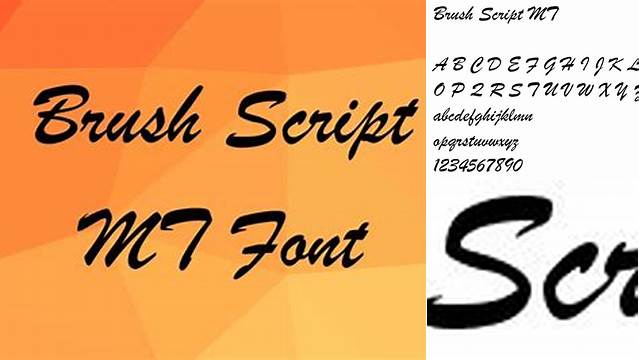
Introduction to Brush Script MT Free Font
Hey guys! Let's dive into the world of fonts, specifically the Brush Script MT Free Font. This font is a classic, and it’s super popular for a reason. If you're looking to add a touch of elegance and personality to your designs, you've come to the right place. Brush Script MT is known for its cursive, flowing letters, which mimic the look of handwriting. It's the kind of font that can make your projects stand out, whether you're working on invitations, posters, logos, or even web designs. But what makes this font so special? Why should you consider using it in your next project? Well, let's break it down. The Brush Script MT font exudes a sense of warmth and authenticity that is often missing in more structured, sans-serif fonts. Its calligraphic style brings a personal touch to any design, making it perfect for projects that aim to convey a sense of intimacy or handcrafted quality. Think about it – a beautifully designed wedding invitation using Brush Script MT can instantly set the tone for a romantic and memorable event. Similarly, a business logo that incorporates this font can communicate a brand’s approachable and creative nature. However, it's important to note that while Brush Script MT is versatile, it's not a one-size-fits-all solution. Its distinctive style is best suited for specific applications where its flowing lines and elegant curves can truly shine. Overusing it or applying it in inappropriate contexts can diminish its impact and make your designs look cluttered or unprofessional. Understanding its strengths and limitations is key to leveraging its full potential. In this comprehensive guide, we’ll explore everything you need to know about Brush Script MT, from its history and characteristics to its best uses and how to download it for free. We'll also discuss some common pitfalls to avoid when using the font and provide tips for pairing it with other fonts to achieve a harmonious and visually appealing design. So, whether you're a seasoned designer or just starting out, stick around – you're about to become a Brush Script MT expert!
History and Characteristics
So, you might be wondering, where did this cool font come from? The history of Brush Script MT is actually quite interesting. It was designed back in 1942 by Robert E. Smith for the American Type Founders (ATF). This was a time when hand-lettered styles were making a big comeback, and Brush Script MT perfectly captured that trend. It was created to mimic the look of brush calligraphy, hence the name. The font quickly gained popularity and has remained a favorite among designers for decades. Its timeless appeal speaks volumes about its design quality and versatility. Smith's vision was to create a typeface that felt both personal and polished, and he succeeded admirably. The flowing strokes and elegant letterforms of Brush Script MT evoke the artistry of traditional calligraphy while remaining accessible and legible for modern applications. This balance between classic and contemporary is what has allowed it to endure as a design staple. Now, let’s talk about the characteristics that make Brush Script MT so unique. First off, it’s a script font, which means the letters are connected in a flowing, cursive style. This gives it a very organic and handwritten feel. The strokes vary in thickness, which adds to the calligraphic effect. You'll notice that some lines are bold and strong, while others are delicate and thin, mimicking the natural variations in pressure applied when writing with a brush. Another key characteristic is its slanted appearance. The letters lean slightly to the right, which gives the font a sense of movement and energy. This slant contributes to its dynamic and engaging aesthetic, making it a great choice for designs that need to capture attention. Brush Script MT also has a relatively high x-height, meaning the lowercase letters are quite tall in relation to the uppercase letters. This enhances readability and makes the font feel more approachable and less formal. The rounded terminals and graceful curves further contribute to its friendly and inviting personality. However, it’s important to note that Brush Script MT's distinctive characteristics also come with some limitations. Its flowing, connected letters can become difficult to read if used in very small sizes or in large blocks of text. Therefore, it’s best used sparingly, for headlines, titles, and short phrases where its elegant style can truly shine. Understanding these characteristics is crucial for using Brush Script MT effectively in your designs. By appreciating its history and recognizing its unique features, you can make informed decisions about when and how to incorporate this beautiful font into your projects.
Best Uses for Brush Script MT
Alright, so where does Brush Script MT really shine? This font isn't just pretty; it's also incredibly versatile when used in the right context. Think of Brush Script MT as that stylish friend who knows how to dress for any occasion – as long as you know the occasion! One of the most popular uses for Brush Script MT is in invitations. Whether it's a wedding, a birthday party, or a special event, this font adds a touch of elegance and personalization. Imagine a wedding invitation with the couple's names beautifully written in Brush Script MT – it instantly sets a romantic and sophisticated tone. The flowing script evokes a sense of celebration and warmth, making it an ideal choice for conveying important life events. Its classic yet contemporary feel ensures that the invitation stands out while maintaining a timeless appeal. Beyond weddings, Brush Script MT works wonderfully for birthday invitations, anniversaries, and even formal gatherings. The key is to use it sparingly, focusing on key elements like names, dates, and event titles. Pairing it with a simpler, more legible font for the body text ensures that the invitation remains easy to read while still exuding style. Another fantastic application is in logos and branding. If your brand wants to convey a sense of creativity, friendliness, or handmade quality, Brush Script MT can be a great choice. Think about businesses like bakeries, craft shops, or boutiques – this font can help them communicate a personal touch. A logo in Brush Script MT can give a brand a unique identity, setting it apart from competitors that opt for more generic fonts. The font's flowing lines and calligraphic style create a visual connection with customers, suggesting a brand that values artistry and attention to detail. However, it's crucial to consider the overall brand image before committing to Brush Script MT for a logo. While it works well for businesses with a creative or personal focus, it might not be the best fit for more corporate or formal industries. For instance, a law firm or a financial institution might prefer a more structured and professional-looking font. Posters and signage are another area where Brush Script MT can make a significant impact. Imagine a poster for a local art exhibition or a sign for a coffee shop – the font's eye-catching style can draw people in. Its elegant curves and dynamic slant create a visual hierarchy that guides the viewer's eye, making the message more memorable. When used on posters, Brush Script MT can add a touch of sophistication and artistry, making the event or product being advertised feel more special. For signage, it can communicate a sense of warmth and welcome, particularly for businesses that aim to create a friendly atmosphere. However, it’s important to ensure that the font is legible from a distance. Using a larger font size and contrasting it with a plain background can help maximize its impact. Lastly, Brush Script MT can also be used in web design, though with some caution. While it can add a unique flair to headers and titles, it's important to ensure it remains readable on different devices and screen sizes. Overusing it on a website can make the text look cluttered and difficult to navigate. Therefore, it’s best to reserve it for key elements like headings, banners, or call-to-action buttons. By understanding its strengths and limitations, you can effectively incorporate Brush Script MT into your web design to create a visually appealing and engaging user experience. In conclusion, Brush Script MT is a versatile font that can enhance a wide range of projects. From invitations and logos to posters and web design, its elegant and personal style can make a lasting impression. Just remember to use it judiciously and in contexts where its unique characteristics can truly shine.
Common Pitfalls to Avoid
Okay, so you've got Brush Script MT, you're ready to roll, but hold up! There are a few common pitfalls you should definitely avoid to make sure your designs look amazing and professional. Using this font effectively is all about knowing its limitations and how to work around them. One of the biggest mistakes people make is overusing the font. Brush Script MT is beautiful, but it's also very distinctive. If you use it for every single element in your design, it can quickly become overwhelming and lose its impact. Think of it like adding too much spice to a dish – a little bit can enhance the flavor, but too much can ruin the whole thing. It's best to reserve Brush Script MT for headlines, titles, or short phrases where its elegance can truly shine. Avoid using it for large blocks of body text, as the cursive style can become difficult to read and strain the eyes. Another pitfall is using it in small sizes. The delicate, flowing lines of Brush Script MT can become muddled and illegible when shrunk down. If you need a small font size, it's better to opt for a simpler, more legible typeface. Brush Script MT is best suited for larger sizes where its intricate details can be appreciated. This is particularly important in web design, where screen resolution and device compatibility can affect how a font renders. Testing the font at different sizes and on various devices is crucial to ensure it remains readable. Inappropriate pairings are another common mistake. Not all fonts play well together, and pairing Brush Script MT with the wrong typeface can create a jarring and unprofessional look. Generally, it's best to pair it with a clean, simple font like a sans-serif or a classic serif. This creates a visual contrast that highlights the elegance of Brush Script MT without overwhelming the overall design. For example, pairing it with a font like Arial or Times New Roman can create a balanced and sophisticated aesthetic. A common mistake is to pair Brush Script MT with another script font, which can result in a cluttered and chaotic design. Choose a secondary font that complements Brush Script MT without competing for attention. Also, be mindful of the context in which you're using the font. Brush Script MT has a certain personality – it's elegant, friendly, and a bit informal. It might not be the best choice for projects that require a serious or professional tone, such as legal documents or financial reports. Consider the message you're trying to convey and whether Brush Script MT aligns with the overall tone and style of your design. For example, while it works beautifully for wedding invitations and creative branding, it might not be suitable for a corporate annual report or a technical manual. Ignoring kerning and spacing can also detract from the font's beauty. Kerning refers to the spacing between individual letters, and adjusting it can significantly improve the readability and visual appeal of your text. Brush Script MT, with its flowing connections, often requires careful kerning to ensure that the letters flow smoothly and don't overlap or appear too far apart. Similarly, paying attention to the overall spacing of your text, including line height and letter spacing, can enhance its readability and visual harmony. Finally, failing to test the font across different mediums is a pitfall that can lead to unexpected results. A font that looks great on your computer screen might not translate well to print, or vice versa. Before finalizing your design, it's essential to test it in the intended medium, whether it's a printed poster, a website, or a mobile app. This will help you identify any issues with readability, sizing, or spacing and make necessary adjustments. In conclusion, Brush Script MT is a fantastic font, but it's important to use it wisely. By avoiding these common pitfalls, you can ensure that your designs look polished, professional, and truly stunning.
Font Pairing Tips
So, you've got Brush Script MT, and you're ready to make some magic. But here’s a secret: even the most beautiful font needs a good partner. Font pairing is an art, guys, and when done right, it can elevate your designs from good to amazing. Let's talk about some tips to help you find the perfect match for Brush Script MT. The golden rule of font pairing is contrast. You want to create visual interest by pairing Brush Script MT with a font that's significantly different. Since Brush Script MT is a flowing, cursive script font, the best pairings are usually with clean, simple fonts that offer a strong contrast. Think of it like pairing a bold statement necklace with a minimalist outfit – the contrast makes both elements shine. One of the most reliable choices for pairing with Brush Script MT is a sans-serif font. Sans-serif fonts are characterized by their clean lines and lack of serifs (the small decorative strokes at the ends of letters). This simplicity provides a perfect counterbalance to the elegance and flair of Brush Script MT. Fonts like Open Sans, Montserrat, and Lato are excellent choices. They're versatile, highly readable, and won't compete with the script font for attention. Using a sans-serif font for body text or secondary elements will help create a balanced and professional look. The contrast in styles will make your design more visually appealing and easier to read. Another great option is a classic serif font, but with a twist. While sans-serif fonts offer a clear contrast in style, serif fonts can bring a touch of sophistication and tradition. However, it's crucial to choose a serif font that doesn't clash with Brush Script MT. Opt for a clean, modern serif like Playfair Display or Garamond. Avoid overly ornate or decorative serif fonts, as they can compete with the script font and create a cluttered look. When using a serif font, consider using it for headings or subheadings to create a clear visual hierarchy. This can help guide the viewer's eye and make your design more engaging. Think about hierarchy. When pairing fonts, consider which elements you want to emphasize. Brush Script MT is perfect for headlines and titles, but it can be challenging to read in large blocks of text. Use your secondary font for the body text or any other elements that require high readability. This creates a visual hierarchy that makes your design more accessible and user-friendly. For example, you might use Brush Script MT for a website header and pair it with a sans-serif font like Roboto for the body text. This ensures that the header stands out while the body text remains easy to read. Limit the number of fonts. It's tempting to use a variety of fonts in your designs, but resist the urge! Too many fonts can create a chaotic and unprofessional look. As a general rule, stick to a maximum of two fonts per design. This will help maintain a cohesive and harmonious aesthetic. If you need more variety, consider using different weights or styles within the same font family. For instance, you could use a bold version of your sans-serif font for subheadings and a regular version for body text. Finally, trust your eye. Font pairing is subjective, and what works well for one design might not work for another. Experiment with different pairings and see what feels right to you. Look at examples of successful font pairings for inspiration, but don't be afraid to break the rules and try something new. Ultimately, the best font pairing is the one that effectively communicates your message and enhances the overall design. In conclusion, pairing Brush Script MT with the right font can make a significant difference in the success of your designs. By focusing on contrast, considering hierarchy, and limiting the number of fonts, you can create visually appealing and professional-looking compositions. So go ahead, experiment, and have fun finding the perfect font match for Brush Script MT!
Alright guys, we've reached the end of our deep dive into the wonderful world of Brush Script MT Free Font. We've covered everything from its history and characteristics to its best uses, where to download it, common pitfalls to avoid, and even some killer font pairing tips. So, what's the takeaway? Brush Script MT is a fantastic font that can add a touch of elegance, personality, and warmth to your designs. Its flowing, cursive style makes it perfect for projects that aim to convey a sense of creativity, intimacy, or handcrafted quality. Whether you're designing wedding invitations, logos, posters, or web elements, Brush Script MT can help you create visually stunning and memorable designs. However, like any tool, it's essential to use it wisely. Overusing it or applying it in inappropriate contexts can diminish its impact and make your designs look cluttered or unprofessional. Understanding its strengths and limitations is key to leveraging its full potential. Remember, Brush Script MT shines brightest when used sparingly, for headlines, titles, or short phrases where its elegant style can truly stand out. It's not the best choice for large blocks of body text, as the cursive style can become difficult to read. Pairing it with a clean, simple font like a sans-serif or a classic serif will help create a balanced and sophisticated aesthetic. By focusing on contrast, considering hierarchy, and limiting the number of fonts, you can create harmonious and visually appealing compositions. When downloading Brush Script MT, be sure to use reputable sources to avoid any potential issues like malware or copyright infringements. Websites like DaFont, FontSpace, and Google Fonts often offer Brush Script MT for free personal use, but always check the licensing terms before incorporating it into any commercial projects. Also, don't forget to check if you already have Brush Script MT installed on your computer, as it's often included in standard font libraries like Microsoft's. In conclusion, Brush Script MT is a versatile and timeless font that can enhance a wide range of design projects. By understanding its history, characteristics, and best uses, you can effectively incorporate it into your work and create designs that are both beautiful and impactful. So go forth, experiment, and let your creativity flow with Brush Script MT! Happy designing, everyone!